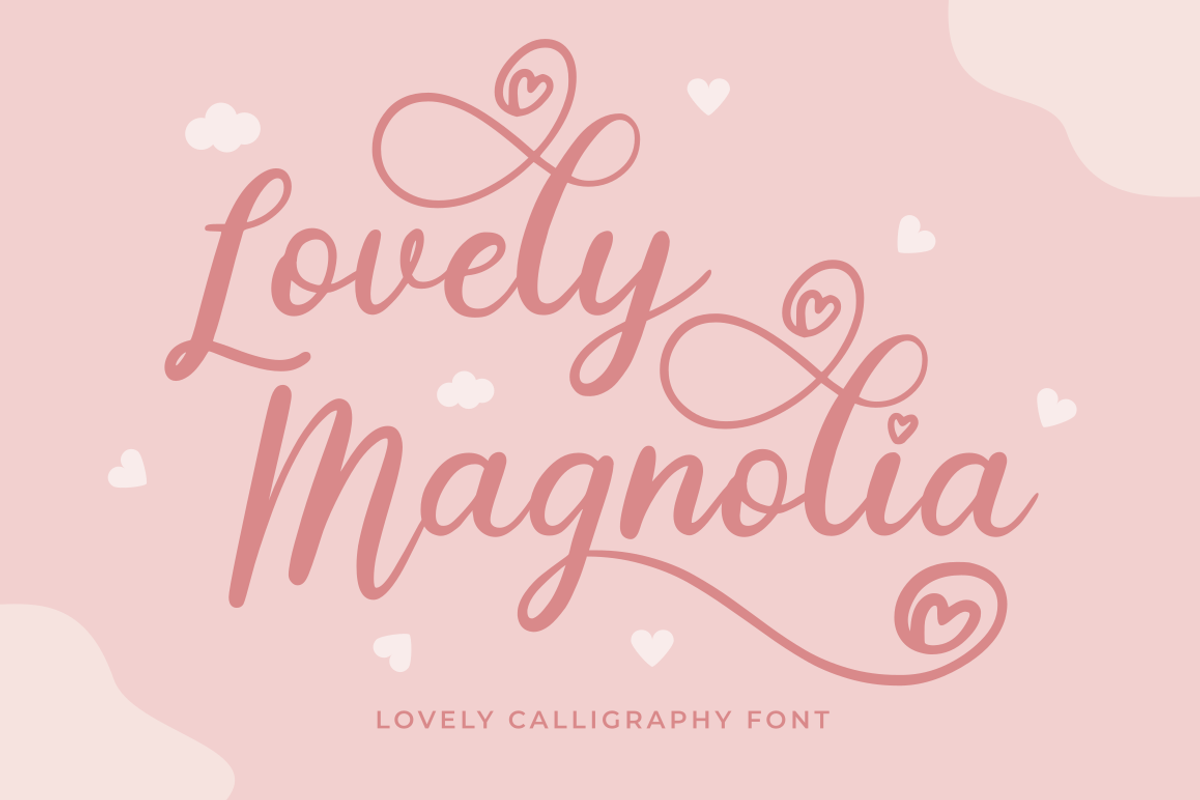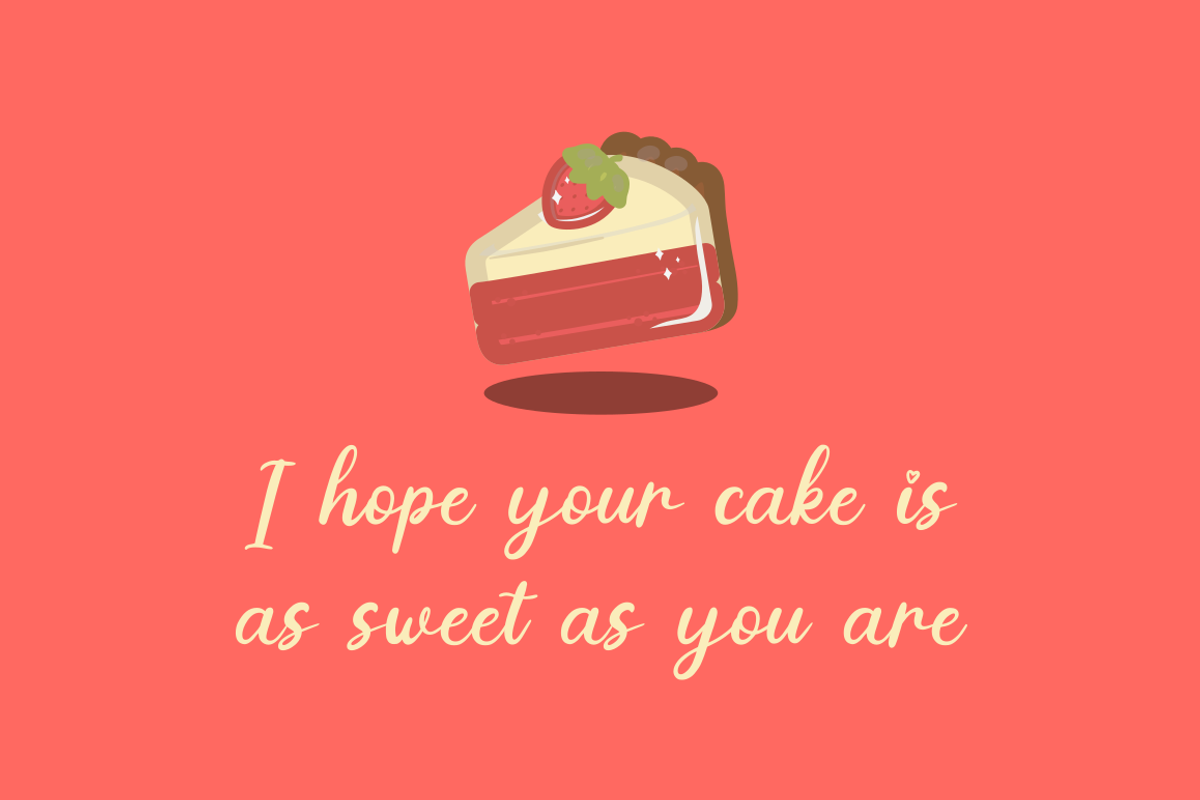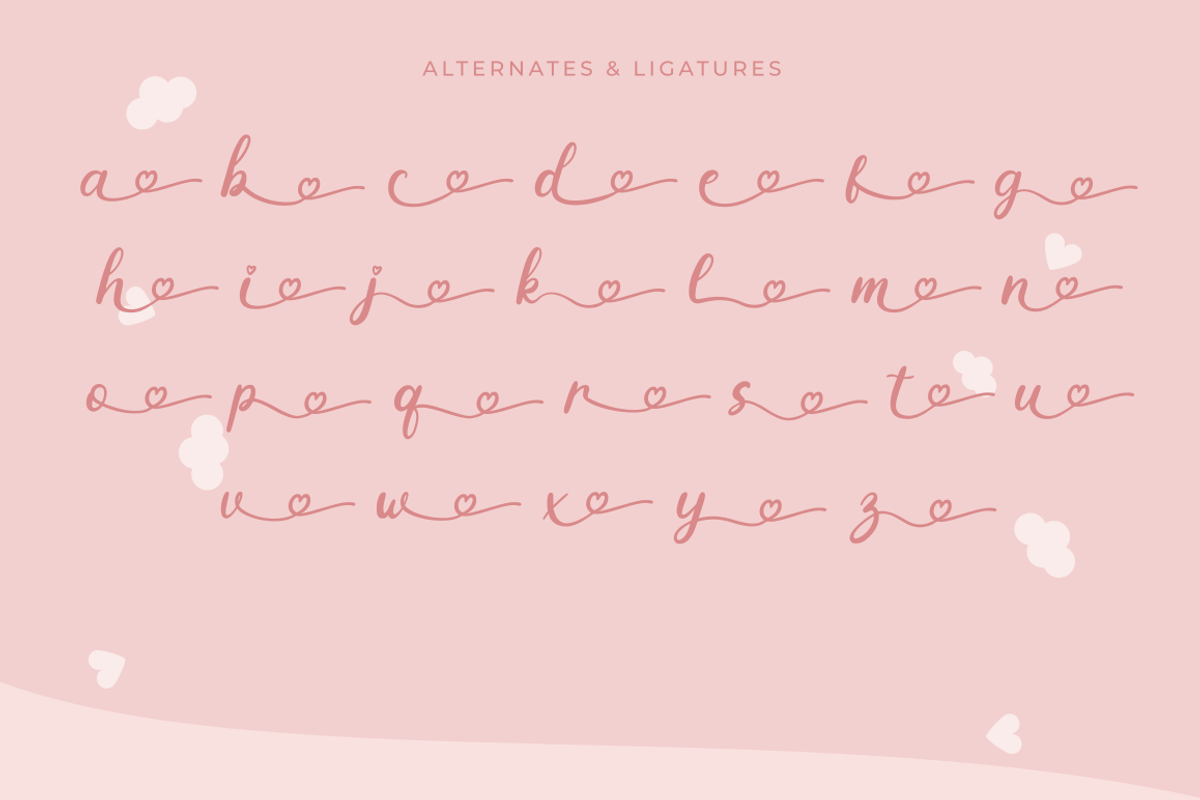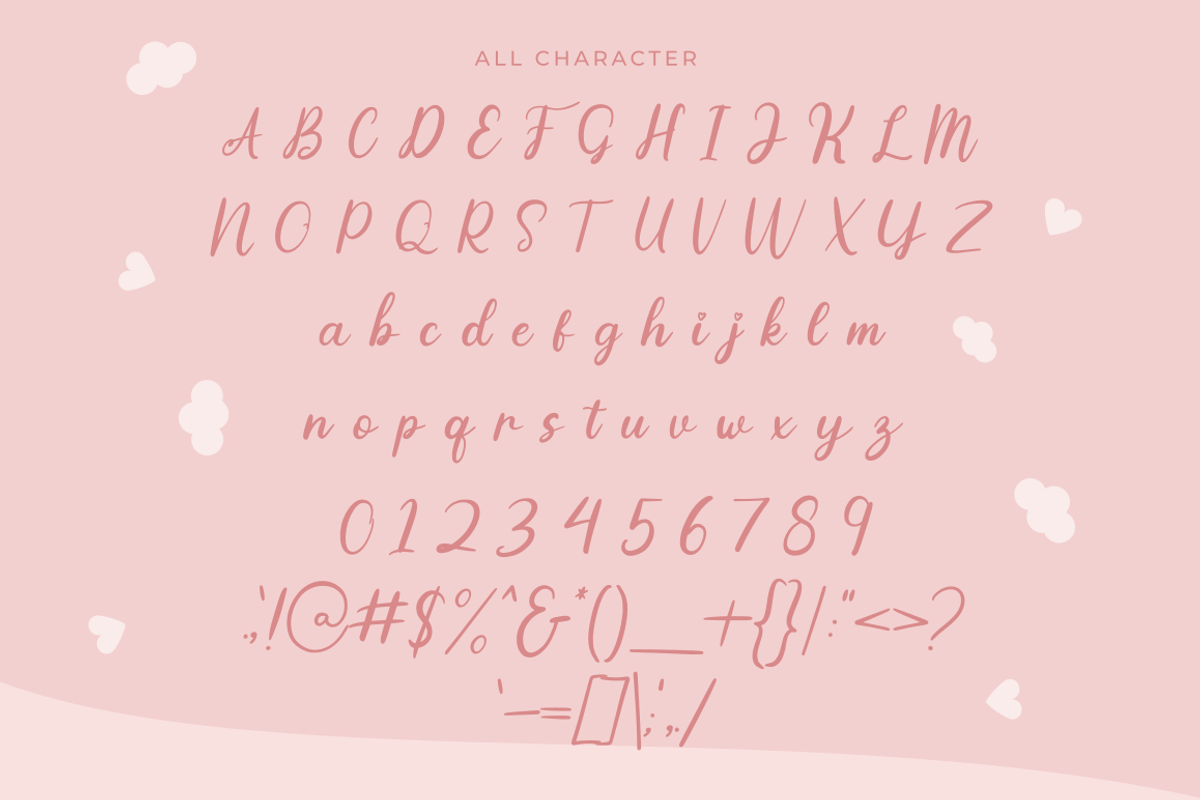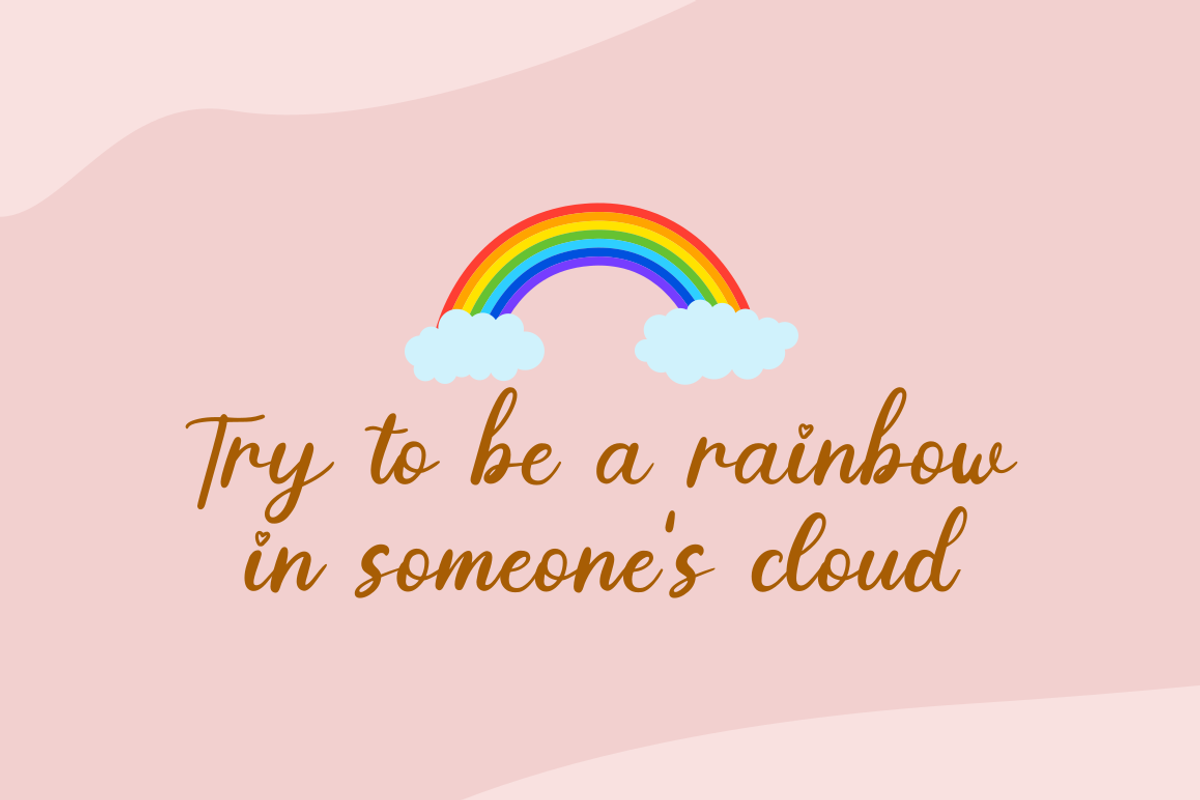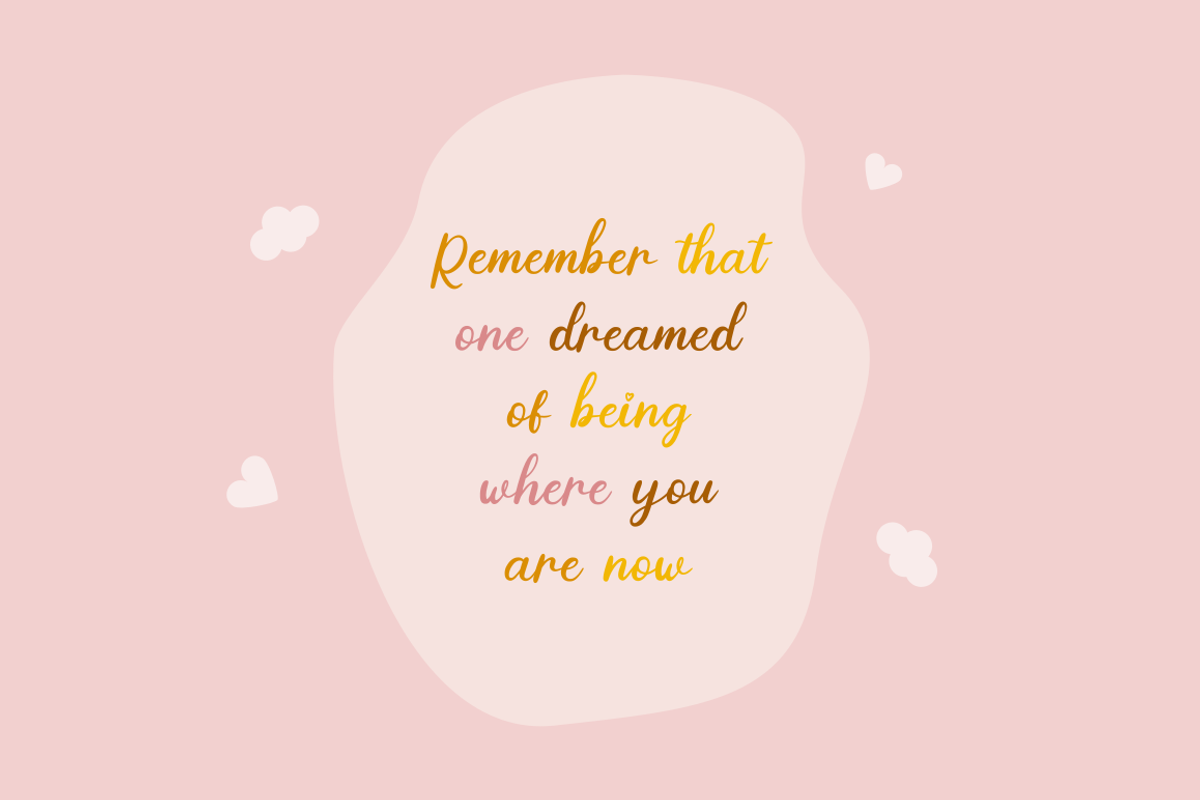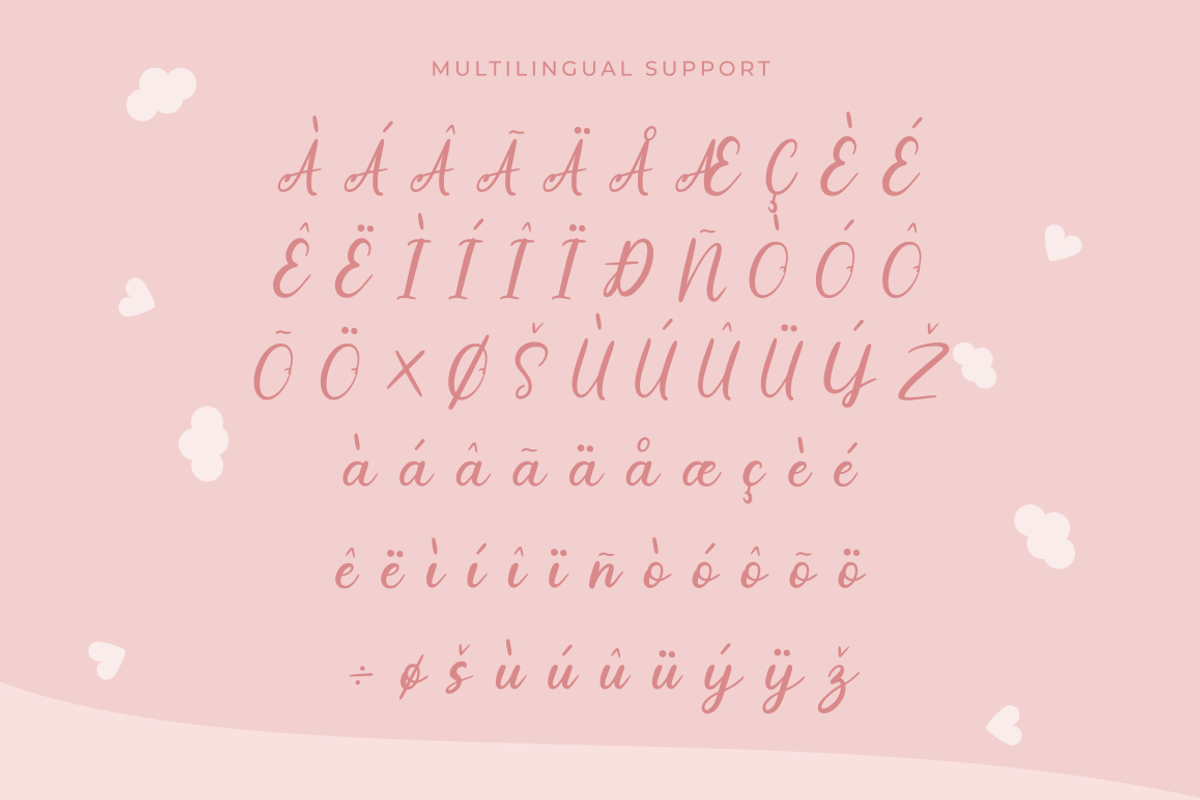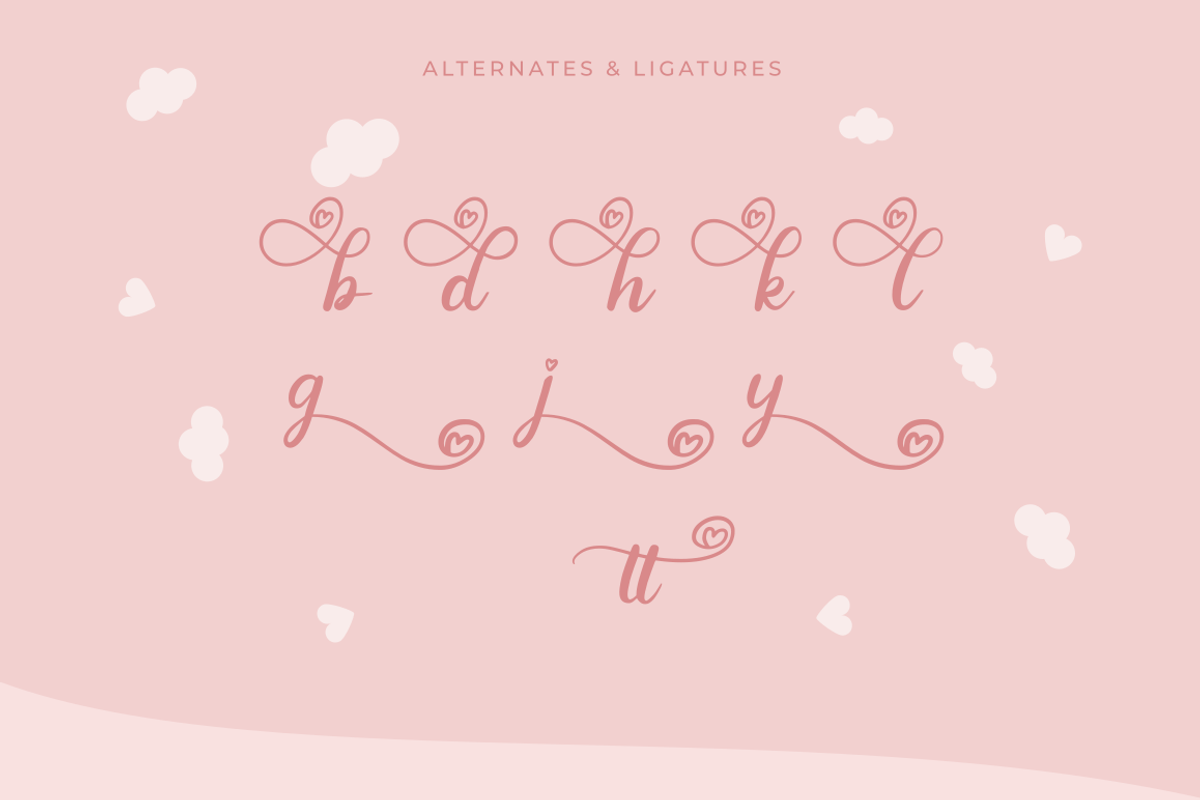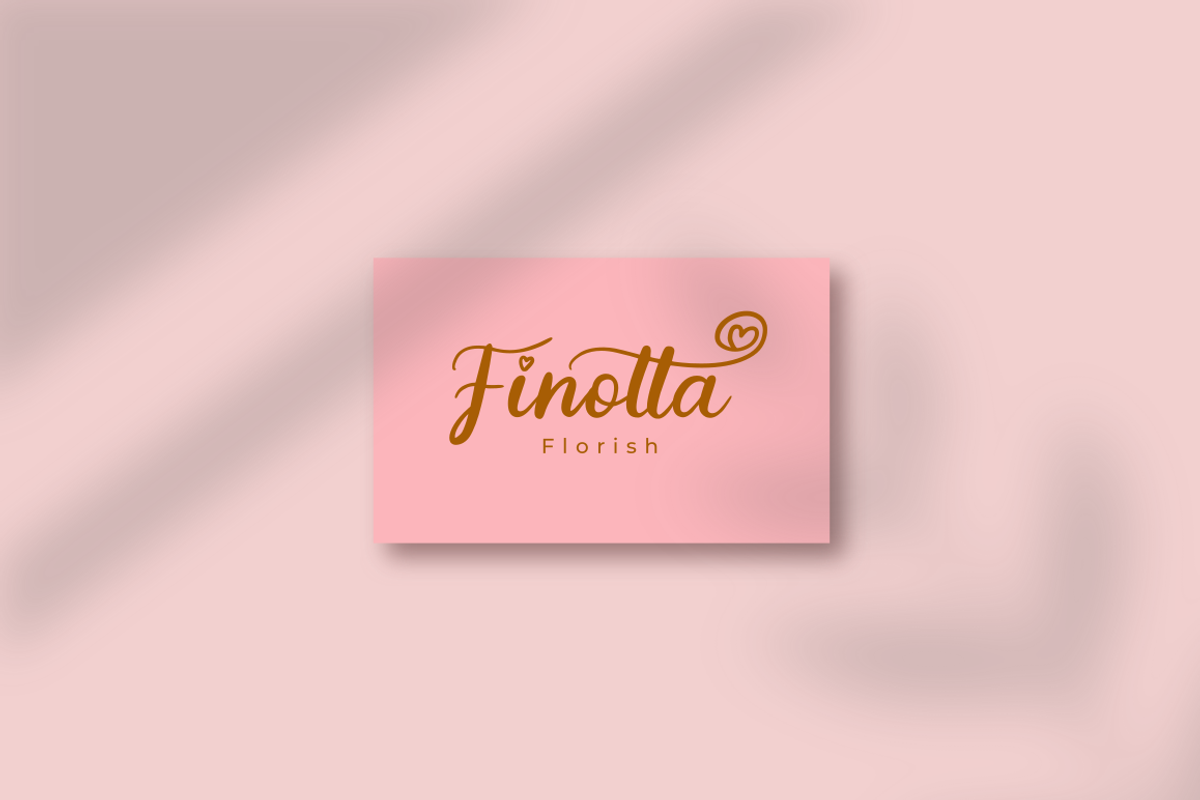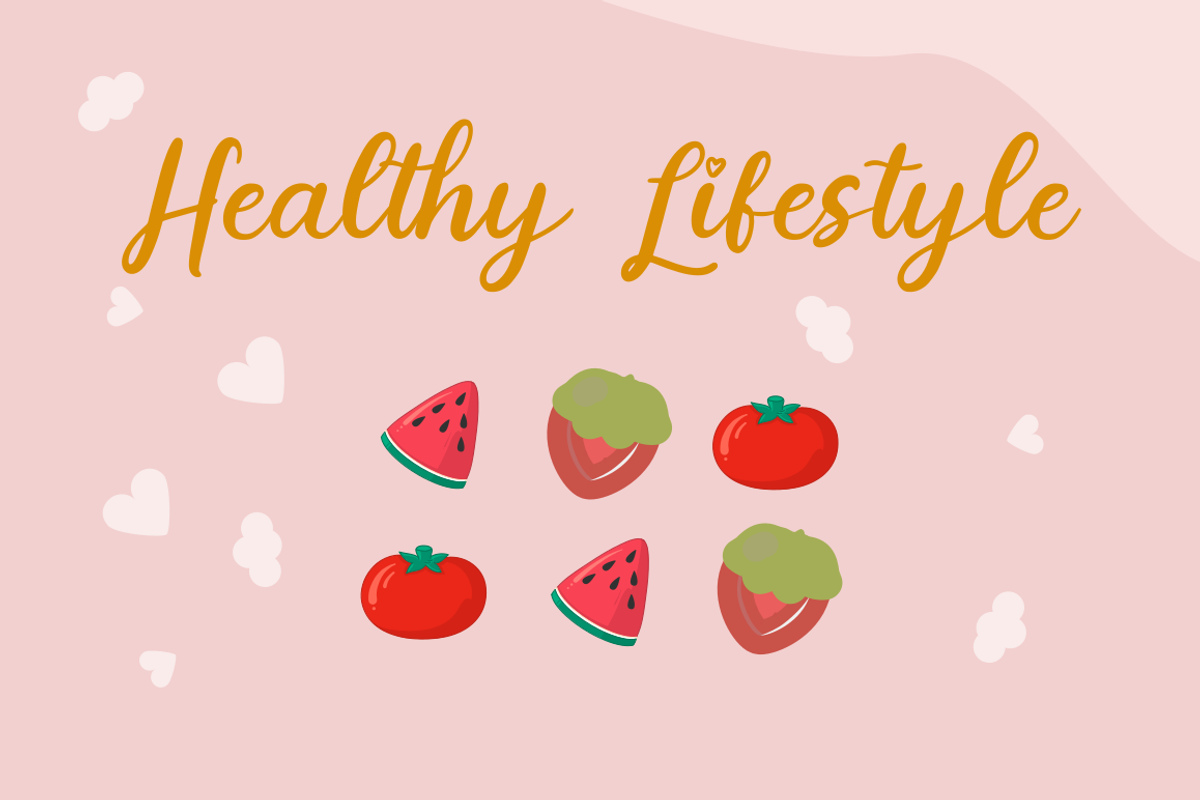
Lovely Magnolia | Cute Handwriting
Lovely Magnolia font is a font inspired by love that blooms in spring, made with real handwriting and looks very girly and beautiful.
Lovely Magnolia font is perfect for branding projects, logo, wedding designs, social media posts, advertisements, product packaging, product designs, label, photography, watermark, invitation, stationery and any projects that need handwriting taste.
- Ligature & Alternates